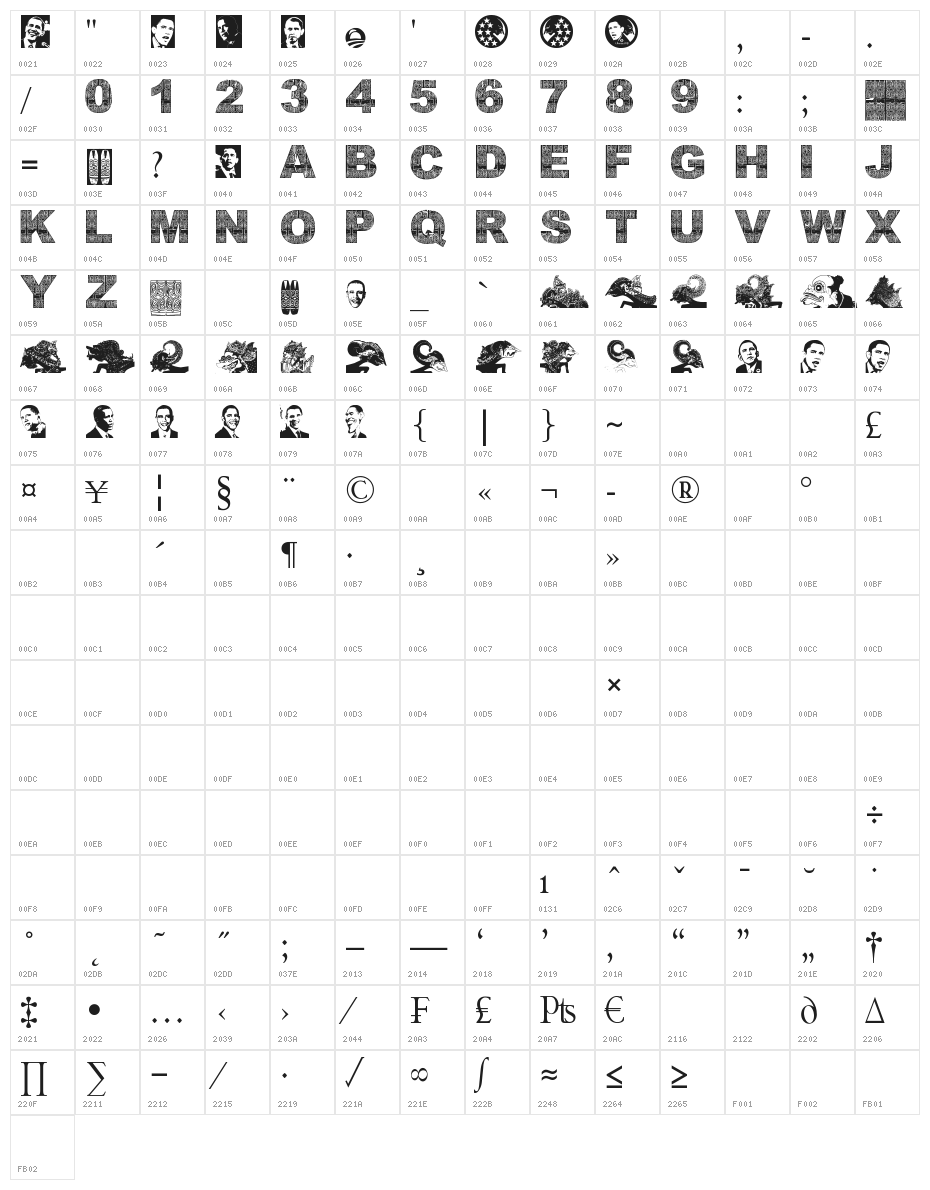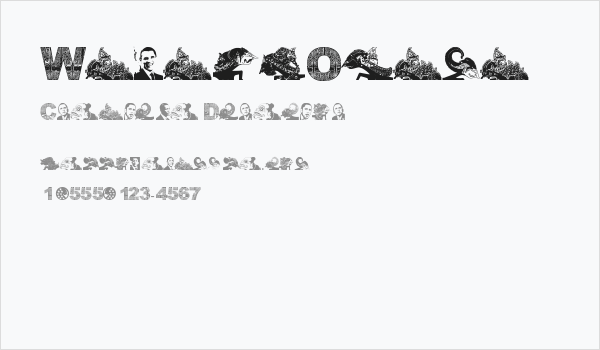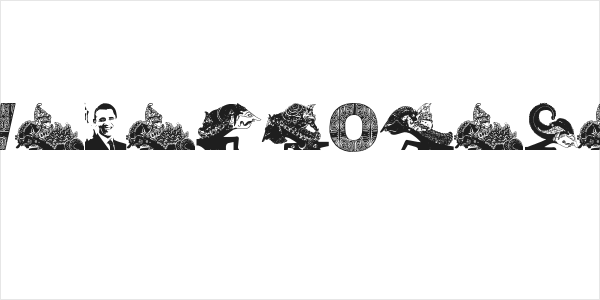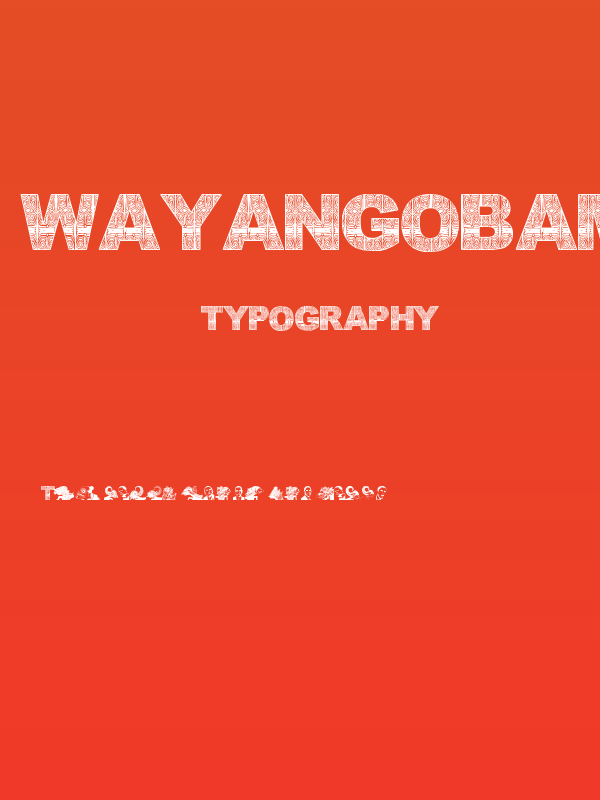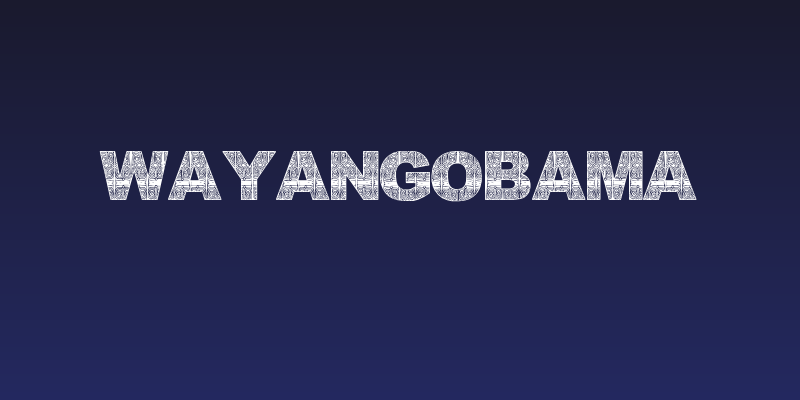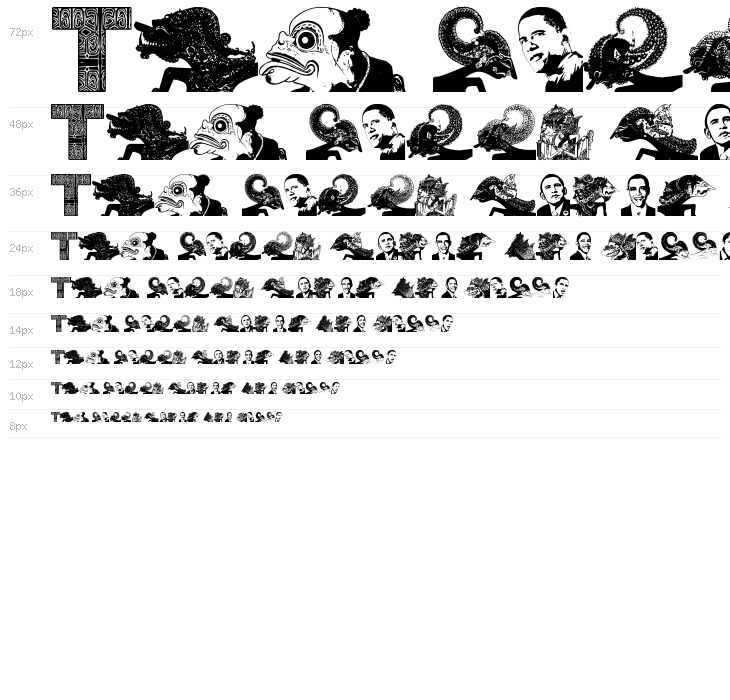
WayangObama Font
WayangObama Description
This font features a unique and intricate design, incorporating cultural and political elements into each character. The uppercase letters are filled with detailed patterns reminiscent of traditional art, while the lowercase letters and numbers maintain a similar style. Special characters include iconic imagery, adding a distinctive flair. The font combines artistic expression with a bold statement, making it visually striking and memorable.
Proposed ProjectsIdeal for cultural projects, political campaigns, artistic posters, and unique branding materials.